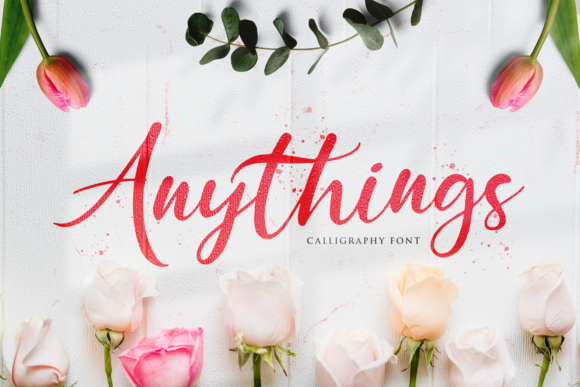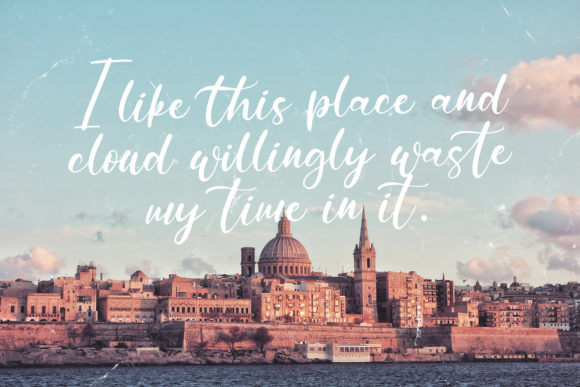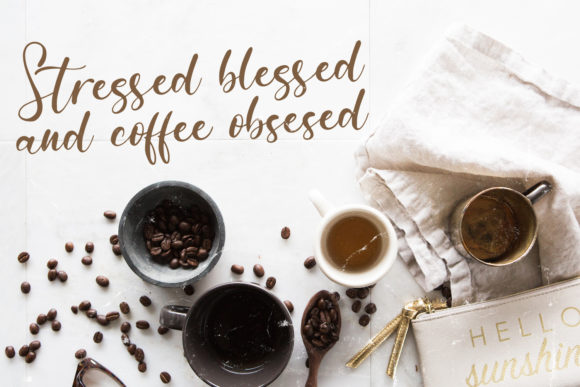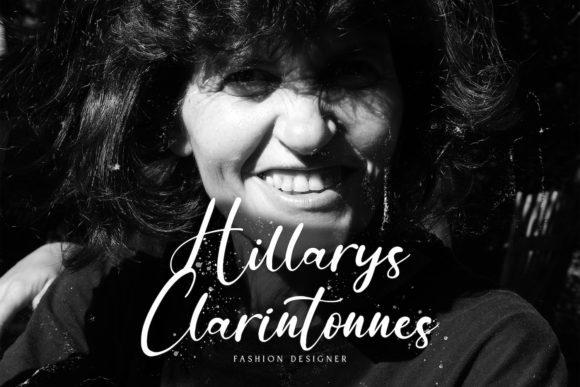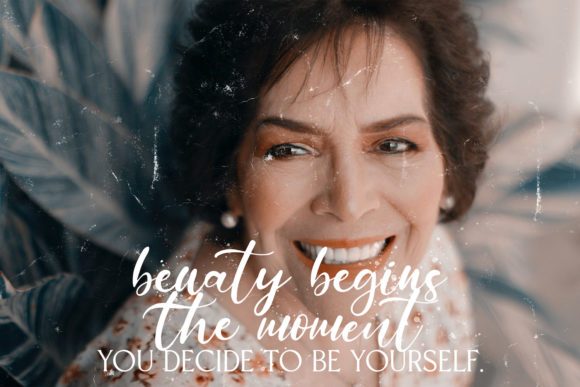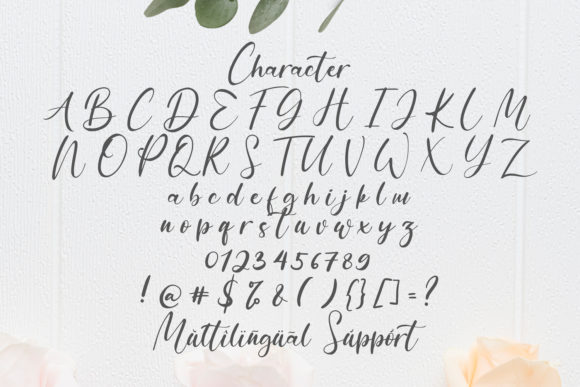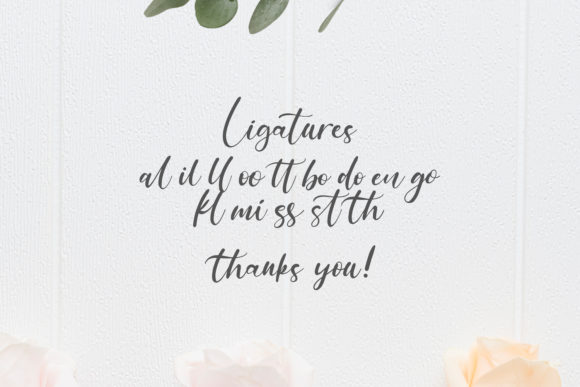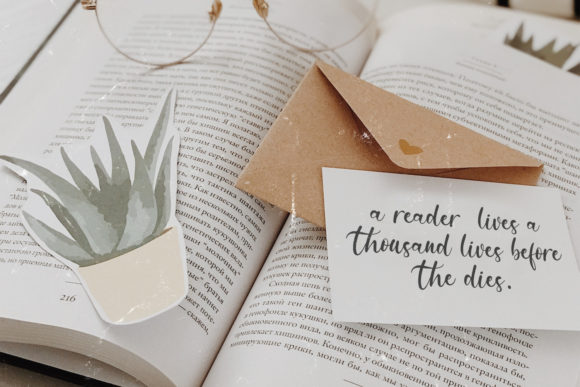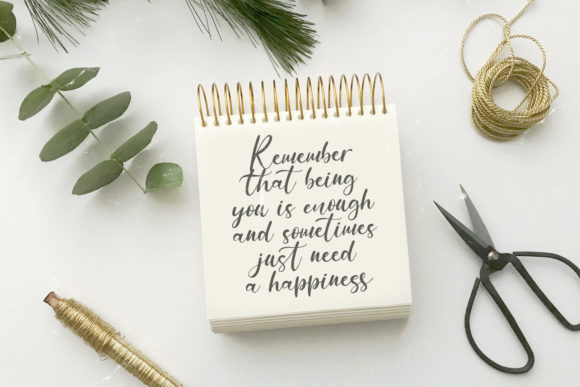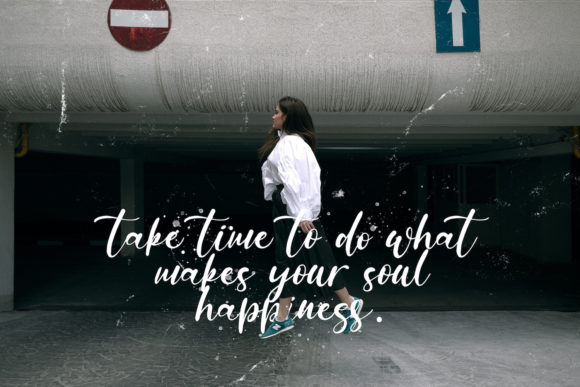
Anythings Font
About Anythings Font
Anythings is an exquisite handwritten font that exudes elegance and sophistication. Meticulously crafted, it strikes a balance between classic calligraphic influences and a contemporary, fresh style. This font is a true favorite for designers and creatives seeking to elevate their projects to new heights. With its versatile features, Anythings offers endless creative possibilities. Here are some ideas on how to make the most of this exceptional font:
1. Wedding Invitations: Use Anythings font to design beautiful and romantic wedding invitations that leave a lasting impression on recipients.
2. Branding and Logos: Create a unique and memorable brand identity with Anythings font, combining timeless elegance with a modern touch.
3. Greeting Cards: Design heartfelt and stylish greeting cards for various occasions, expressing emotions with sophistication.
4. Book Covers: Apply Anythings font to book covers to create a sense of elegance and intrigue, enticing readers to dive into the story.
5. Stationery: Enhance your stationery designs with the exquisite charm of Anythings font, making your letters and notes truly special.
6. Signage and Labels: Use Anythings font for store signage or product labels, adding a touch of sophistication to your visual brand.
7. Social Media Graphics: Elevate your social media posts with the graceful curves and stunning alternates of Anythings font.
8. Packaging Design: Apply Anythings font to packaging design for products that exude luxury and elegance.
9. Product Branding: Use Anythings font to brand your products, adding a touch of refinement to their overall presentation.
10. Personal Projects: Embrace the versatility of Anythings font for personal projects such as art prints, posters, or customized gifts.
11. Quote Designs: Create eye-catching quote designs with Anythings font, combining inspiring words with an elegant layout.
12. Invitations: Design elegant and stylish invitations for various events, capturing attention with the charm of Anythings font.
13. Photography Watermarks: Add a personalized and sophisticated touch to your photography with Anythings font as a watermark.
14. Magazine Headings: Use Anythings font for magazine headings and subheadings to create a visually stunning and cohesive layout.
15. Packaging Inserts: Enhance the unboxing experience by incorporating Anythings font on packaging inserts, leaving a lasting impression.
Whether you’re designing for weddings, brands, social media, or personal projects, Anythings font will undoubtedly bring a touch of class and refinement to your creations. The PUA encoded features, varying baseline, smooth lines, and gorgeous glyphs empower you with endless possibilities to bring your design vision to life. Embrace the timeless allure of Anythings font and watch your projects reach new heights of beauty and sophistication.